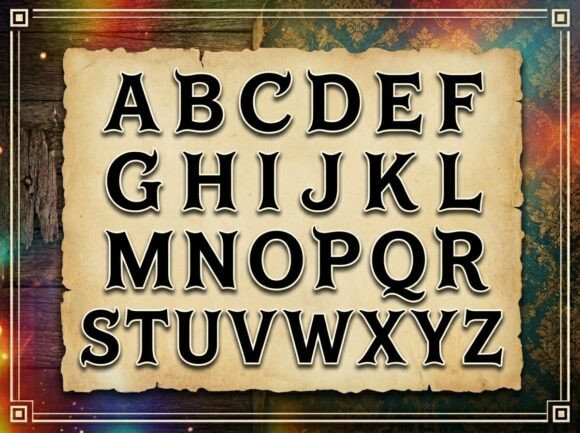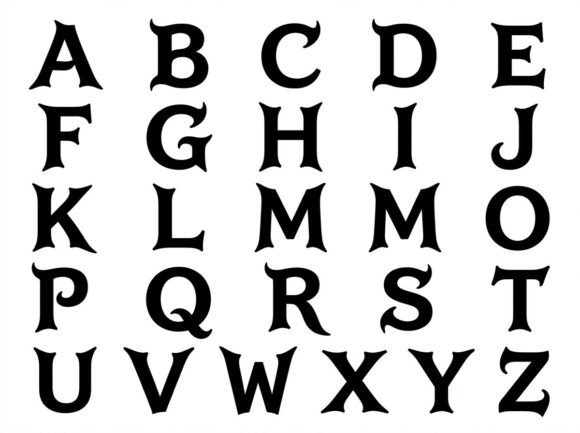
Discover the Rugged Elegance of Cheri Font
I’ll never forget the design project that led me to Cheri Font. I was working on a branding campaign for a craft whiskey label, and I needed a font that would evoke the spirit of the American West. I spent hours scouring font libraries, but nothing seemed quite right – until I stumbled upon Cheri. Its bold, high-contrast letterforms and elegant serifs immediately caught my eye, and I knew I’d found the perfect fit. In this article, I’ll share my experience with Cheri Font, and show you how to make the most of its unique features.
A Personal Review of Cheri Font
- ✨ Unique architectural balance: Cheri’s blend of masculine strength and decorative finesse makes it perfect for a wide range of design applications.
- ✅ Elegant serifs: The sweeping serifs add a touch of sophistication to any design, making it ideal for high-end branding and editorial layouts.
- 🔥 High-contrast letterforms: The bold, sharp letterforms are perfect for creating eye-catching signage and headlines.
While Cheri Font is an exceptional choice for many design projects, there are a few things to keep in mind:
- 🤔 Limited use in body text: Due to its ornate nature, Cheri is best suited for display text or headlines. For body text, consider pairing it with a simpler font.
- ⚠️ Glyph limitations: While Cheri has a range of OpenType features, some glyphs may not be available in all platforms or software.
A Practical Guide to Using Cheri Font
The Story Behind Cheri Font
Cheri Font was inspired by the rugged elegance of the American West. Its designer sought to create a font that would evoke the spirit of the frontier, while also conveying a sense of sophistication and refinement. The result is a unique blend of bold, high-contrast letterforms and elegant serifs, perfect for a wide range of design applications.
| What is Cheri Font best suited for? | Cheri Font is ideal for display text, headlines, and branding, particularly in the Western or rustic-chic aesthetic. |
| Can I use Cheri Font for body text? | While possible, Cheri Font is best suited for display text or headlines. For body text, consider pairing it with a simpler font. |
| Does Cheri Font have OpenType features? | Yes, Cheri Font features a range of OpenType features, including Stylistic Alternates, Glyphs, and Swashes. |